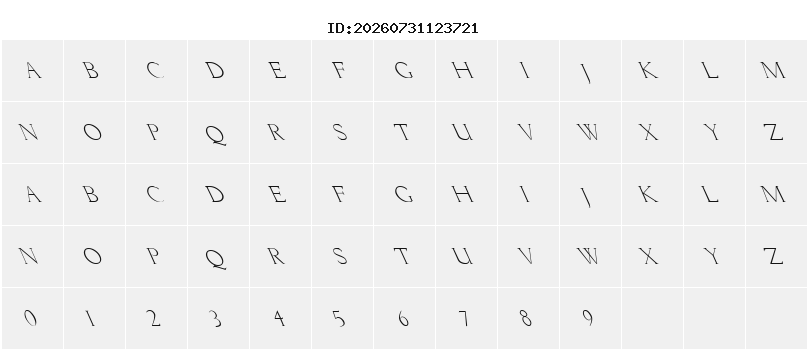
• Font Name: Lichtner Leftie
Lichtner Leftie.ttf is a modern, elegant sans-serif font designed for ultimate readability and visual harmony. Perfect for branding, headlines, web design, and print materials.